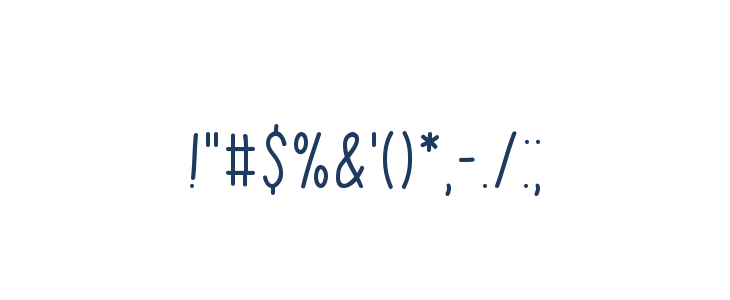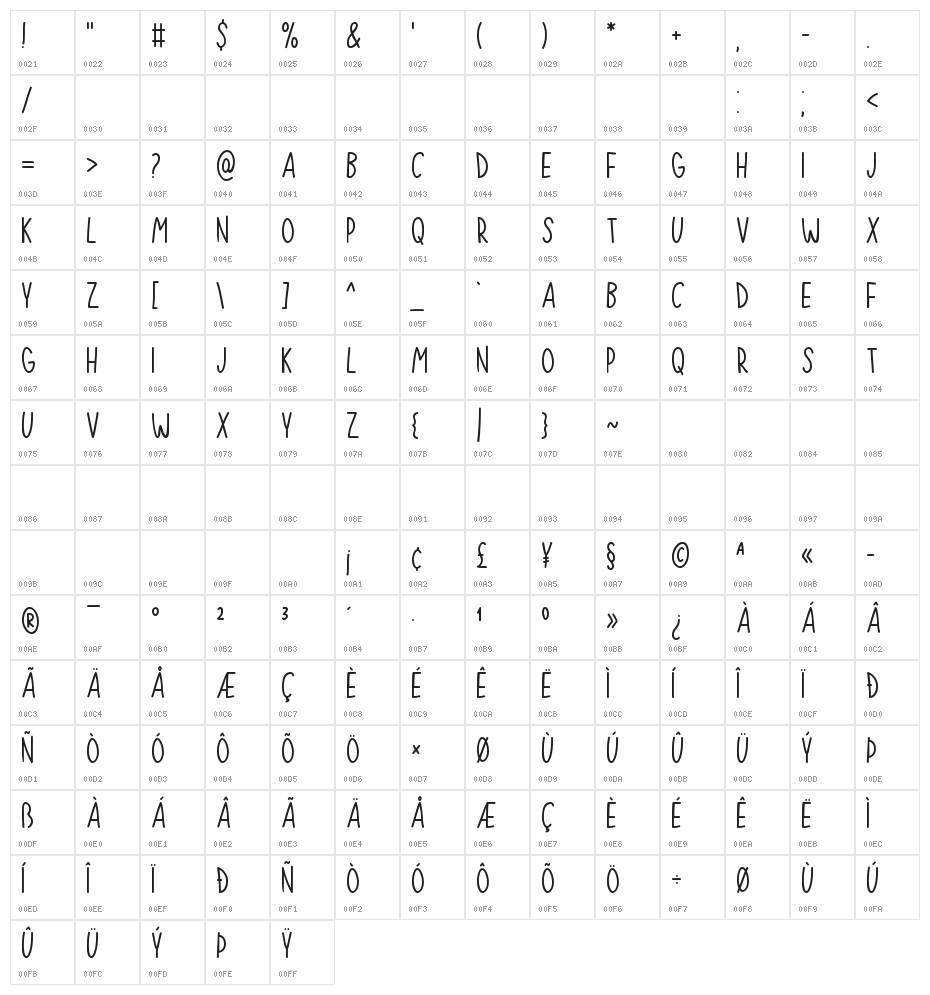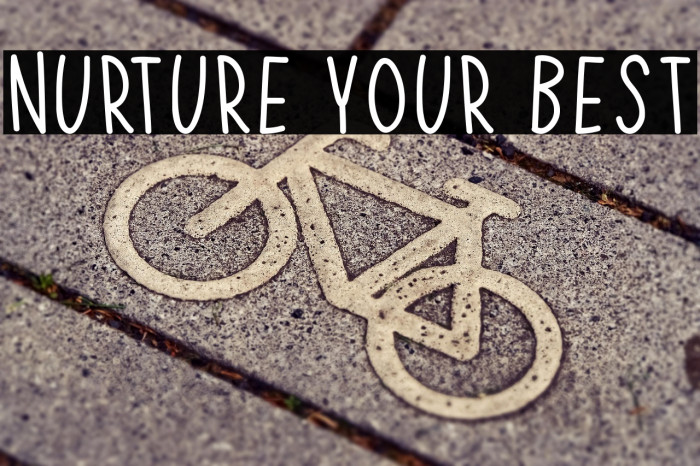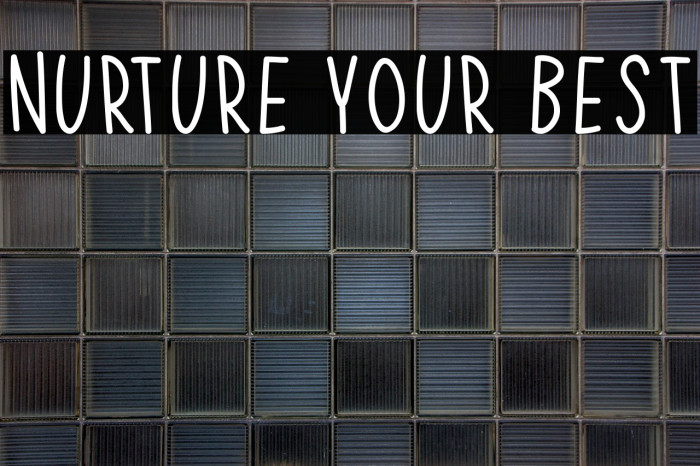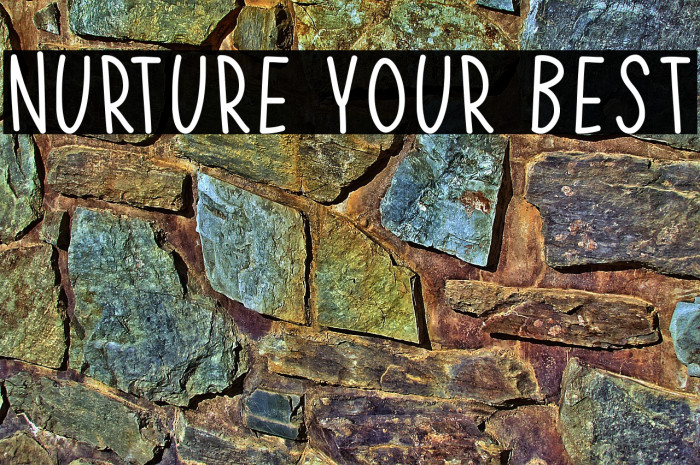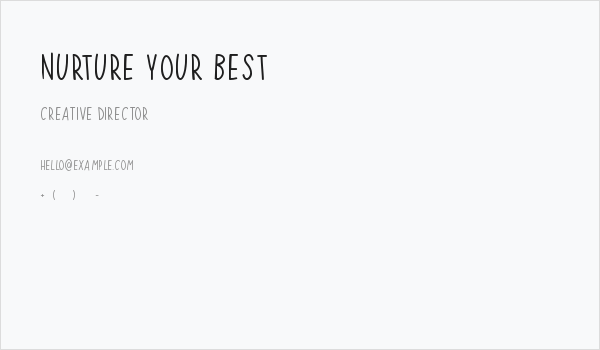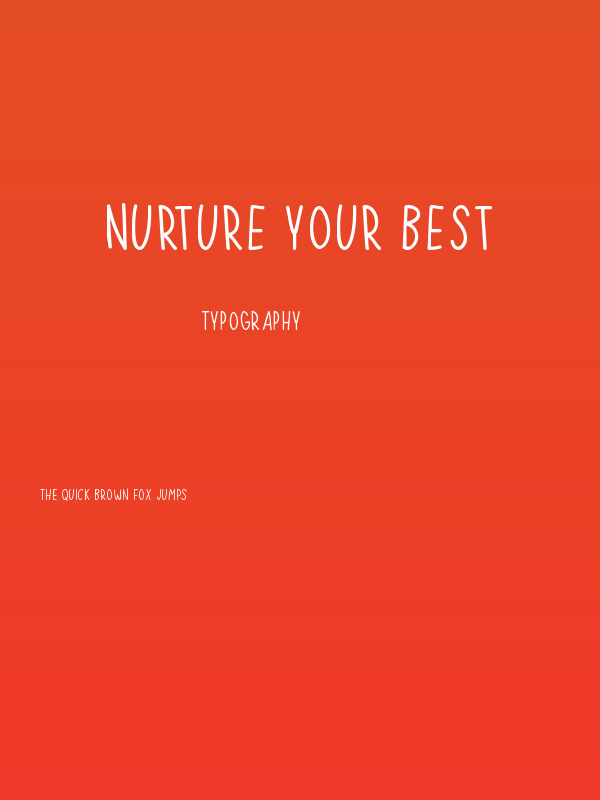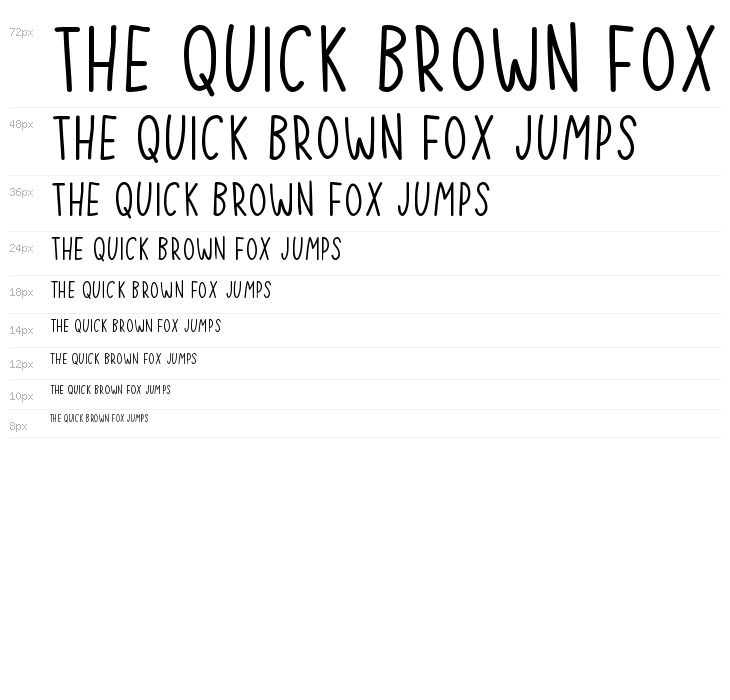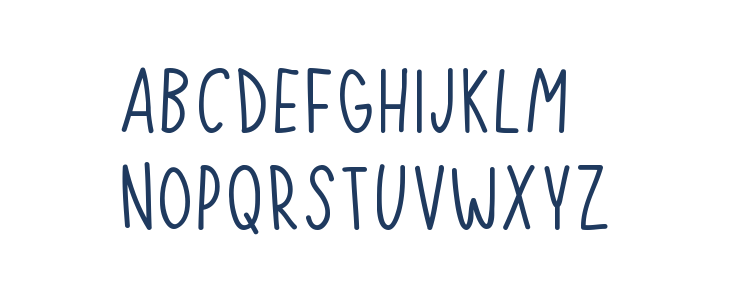
Nurture Your Best Font
This font features a playful and informal handwritten style, characterized by its tall, narrow letters with a slightly irregular baseline. The strokes are consistent in width, giving it a uniform appearance despite its casual feel. The uppercase and lowercase letters maintain a cohesive look, with rounded edges and a friendly demeanor. The numerals and special characters follow the same design principles, ensuring a harmonious overall look. This font is ideal for projects that require a personal touch, such as greeting cards, children's books, or playful branding.
Overall StyleCasual, Playful
Use CaseHeadlines, Informal text, Branding
Proposed ProjectsIdeal for greeting cards, children's books, playful branding, and informal invitations.